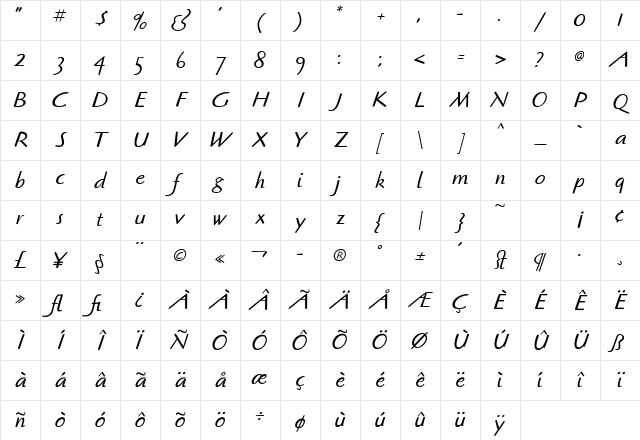
Complete AIOzBrush Italic glyph index. Displaying only characters natively supported by AIOzBrush Italic font.
AIOzBrush flows with the natural rhythm of handwritten lettering, making it ideal for designs that call for warmth and personal expression.
Font Pairing: Combine AIOzBrush with a simple geometric sans for maximum contrast - the tension between flowing curves and clean structure is a classic typographic pairing.
Pro Tip: Use AIOzBrush for short runs of text - names, titles, or taglines. Extended body copy in script faces tires the eye quickly.